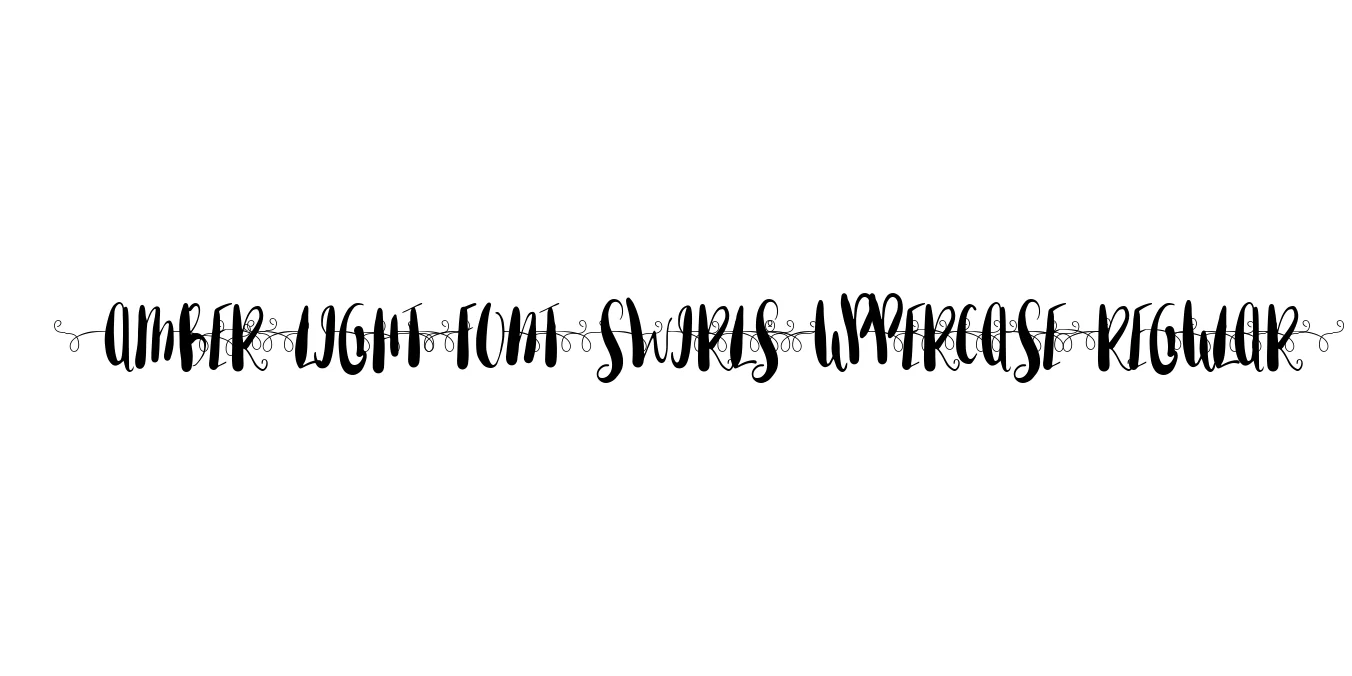
Amber Light Font swirls Uppercase Regular
Designed by Artimasa Studio
| Category | Script / Decorative |
| Designer | Artimasa Studio |
Amber Light is a contemporary script font characterized by its fluid, hand-drawn aesthetic and sophisticated charm. The Swirls Uppercase Regular variant specifically enhances the capital letters with ornate, rhythmic flourishes that give any design a sense of movement and artistry. It was crafted to bridge the gap between traditional calligraphy and modern digital typography, making it a versatile choice for designers seeking an organic yet polished look.
Since its introduction, this typeface has become a staple in the creative community for projects that require a feminine and graceful touch. Its balanced letterforms and expressive swashes make it ideal for high-end packaging, editorial headlines, and personalized stationery. The font's ability to maintain legibility while showcasing complex decorative swirls ensures it remains a top choice for both print and digital media.
Amber Light Font swirls Uppercase Regular Best Uses
Ideal for invitations, RSVP cards, and elegant place settings.
Perfect for boutique logos, artisan product labels, and feminine brand identities.
High-impact quotes, stories, and stylish Instagram overlays.
Adds a premium, handcrafted feel to cosmetics and luxury goods.